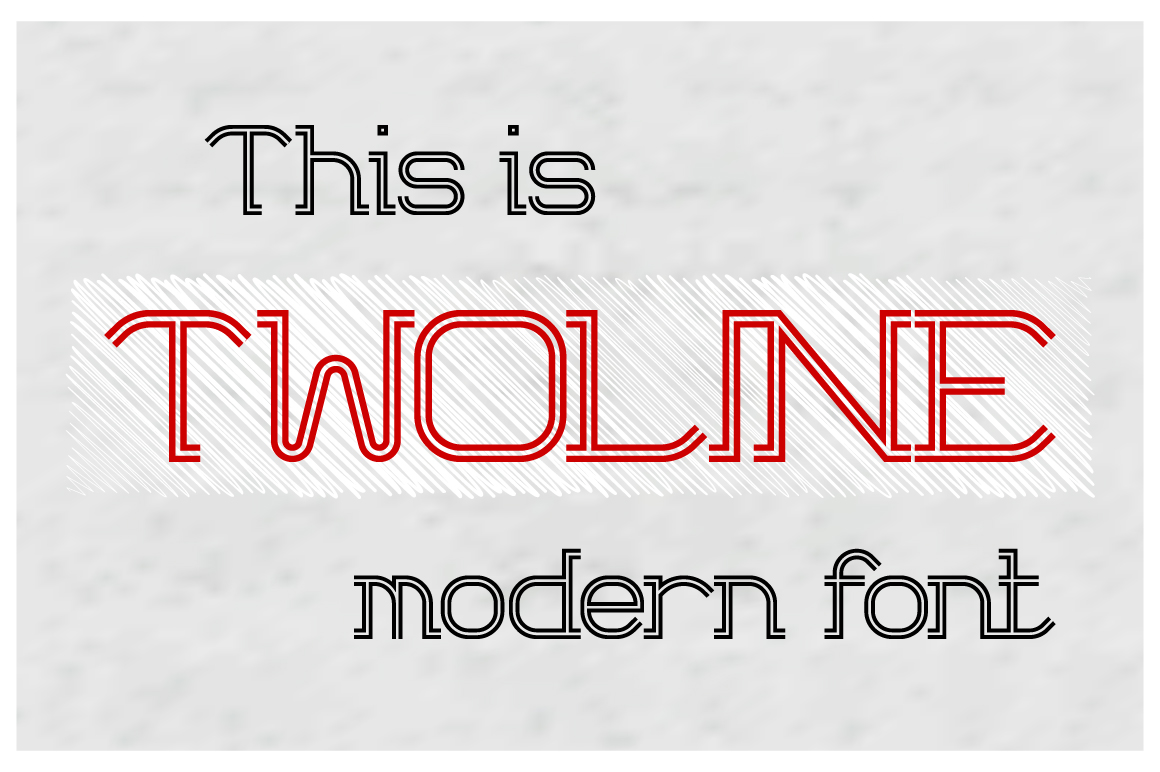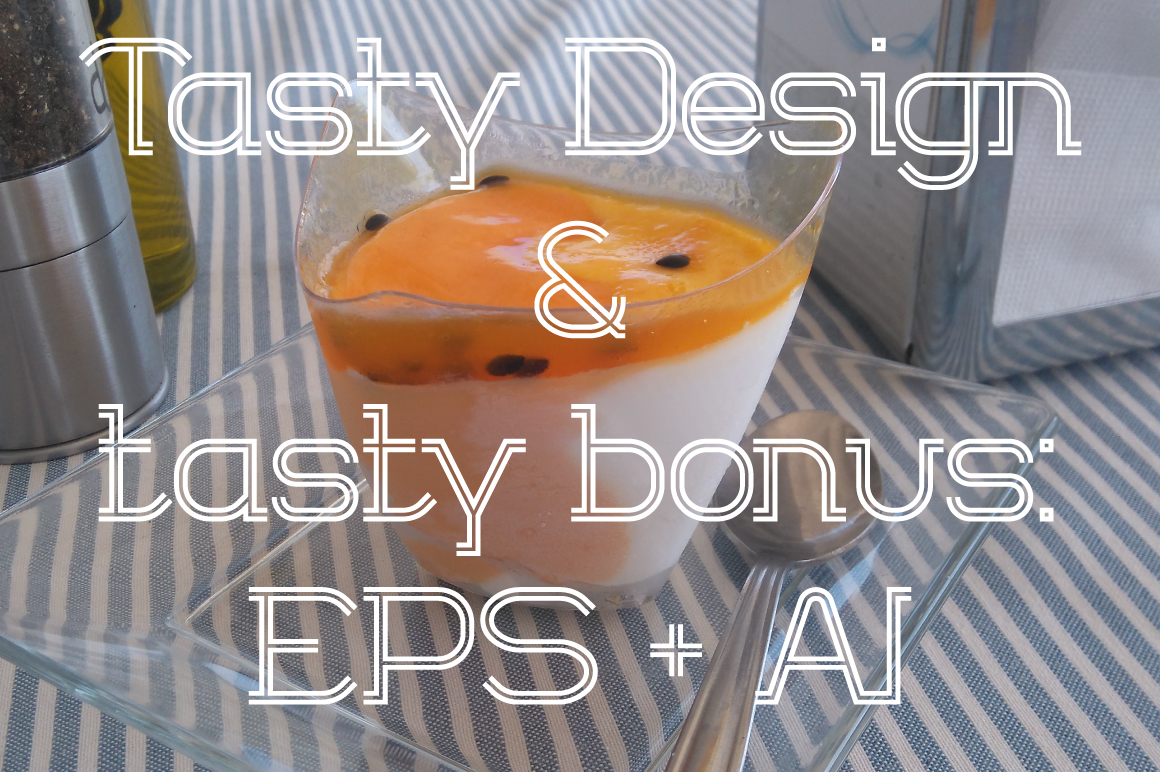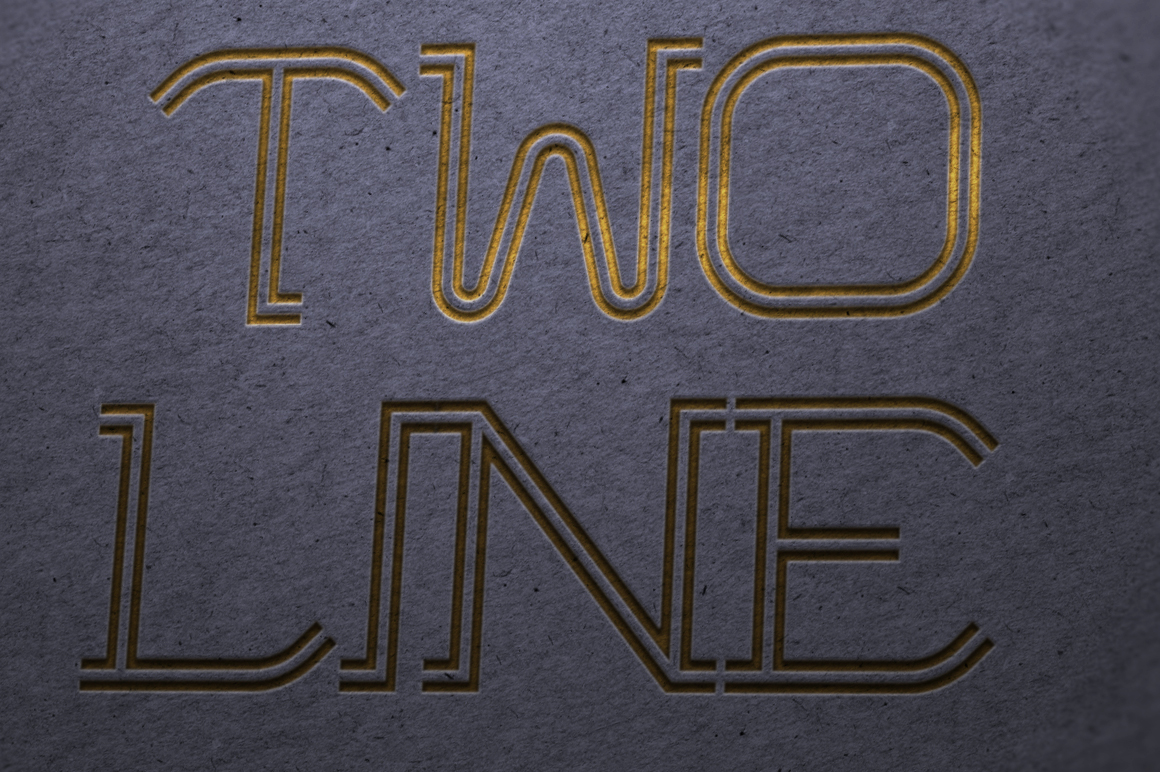
Twoline font two line symbols
Twoline font is readable font that consists of uppercase and lowercase letters, numbers special and non-English characters. Install and use this typeface without limiting your imagination. Make a cool design with Twoline font.